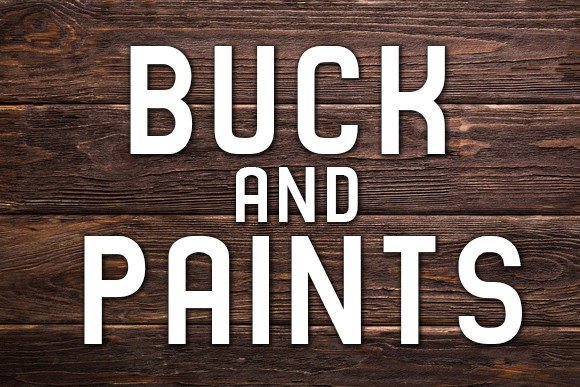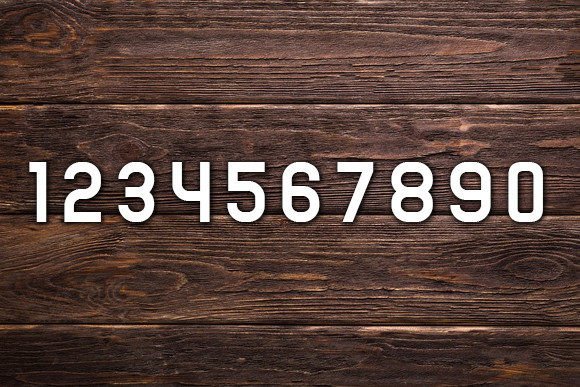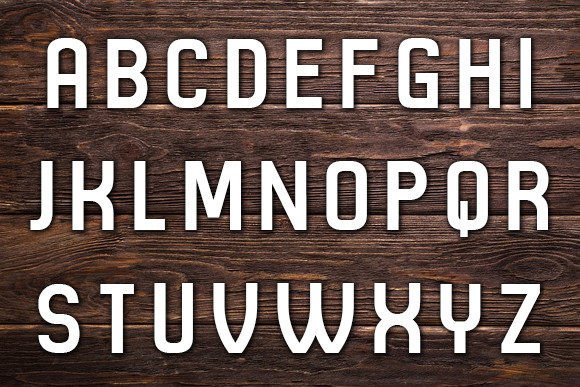
Browning Font: Elevate Your Designs with Elegance
In the world of typography, a font can make or break a design. For designers and crafters looking to add a touch of sophistication to their work, Browning Font is an excellent choice. This elegant Sans Serif typeface is versatile, stylish, and sure to make your designs stand out. In this article, we’ll explore the features and benefits of Browning Font, and how you can use it to take your designs to the next level.
The Characteristics of Browning Font
Browning Font is a Sans Serif typeface, characterized by its clean lines, simple shapes, and lack of decorative flourishes. This makes it an excellent choice for designs where clarity and readability are paramount. The font’s elegant and refined aesthetic is perfect for creating a sophisticated look that will appeal to a wide range of audiences.
One of the key features of Browning Font is its versatility. It can be used for a variety of design projects, from posters and flyers to t-shirts and digital media. Its scalability is also impressive, allowing it to be used at a range of sizes without losing its elegance or legibility.
Why Choose Browning Font?
So why should you choose Browning Font for your designs? Here are just a few compelling reasons:
• Elegance**: Browning Font exudes elegance and sophistication, making it perfect for designs where you want to create a high-end look.
• Versatility**: This font can be used for a wide range of design projects, from print to digital media.
• Readability**: The clean lines and simple shapes of Browning Font make it highly readable, even at small sizes.
• Uniqueness**: While Sans Serif fonts are popular, Browning Font has a unique character that sets it apart from more common typefaces.
Using Browning Font in Your Designs
So how can you use Browning Font in your designs? Here are a few ideas to get you started:
• Posters**: Create eye-catching posters for events, promotions, or advertising campaigns using Browning Font.
• Flyers**: Use Browning Font to create flyers for businesses, organizations, or events.
• T-shirts**: Design stylish and elegant t-shirts using Browning Font.
• Digital Media**: Use Browning Font in your digital media, such as social media graphics, website headers, and more.
Tips for Getting the Most Out of Browning Font
To get the most out of Browning Font, here are a few tips to keep in mind:
• Experiment with sizes**: Browning Font is scalable, so experiment with different sizes to find the one that works best for your design.
• Pair it with other fonts**: Try pairing Browning Font with other fonts to create a unique and visually appealing combination.
• Use it consistently**: Use Browning Font consistently throughout your design to create a cohesive look.
In conclusion, Browning Font is an elegant Sans Serif typeface that is perfect for designers and crafters looking to add a touch of sophistication to their work. Its versatility, readability, and unique character make it an excellent choice for a wide range of design projects. Whether you’re creating posters, flyers, t-shirts, or digital media, Browning Font is sure to make your designs stand out. So why not give it a try and see the difference it can make?